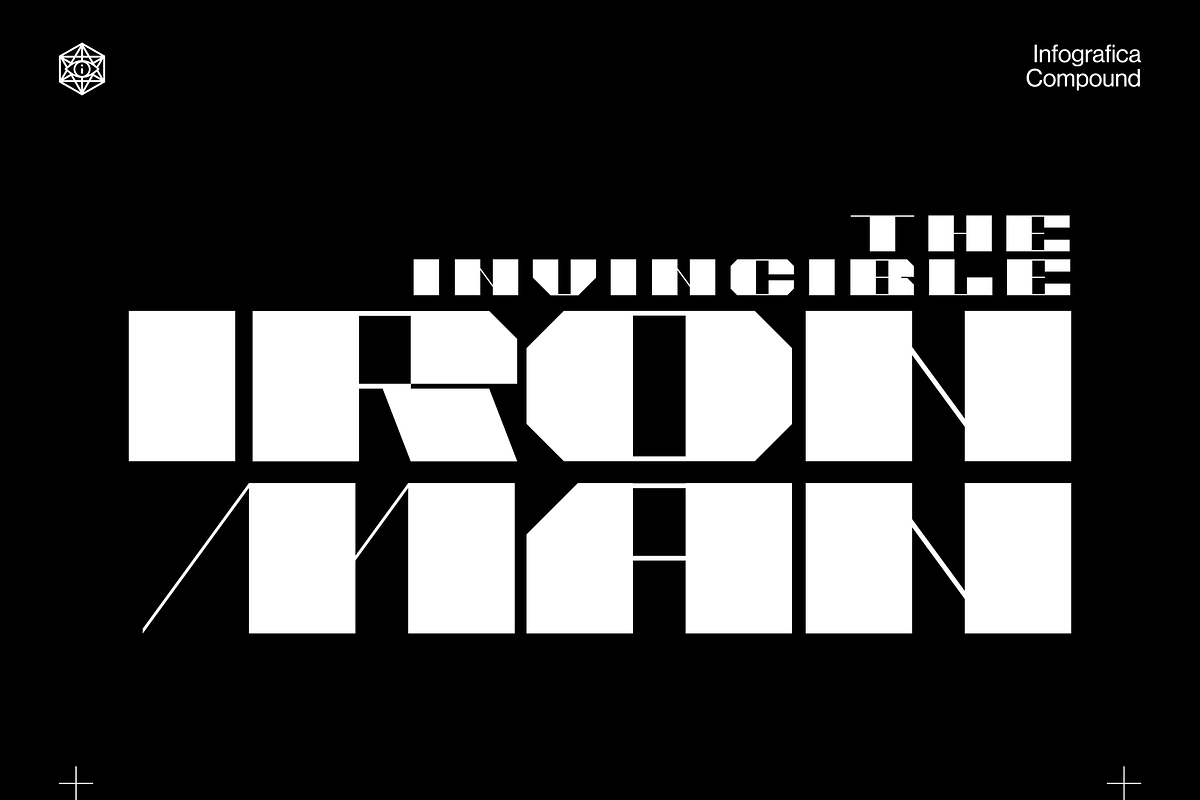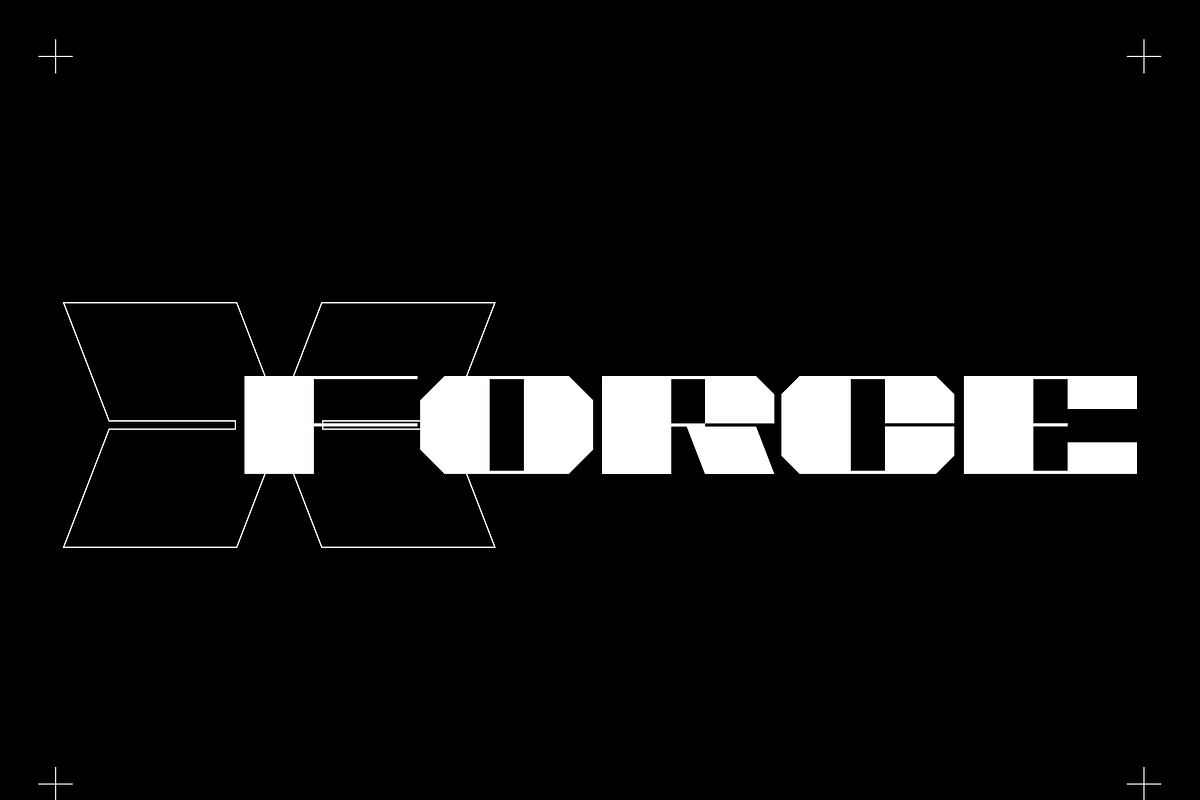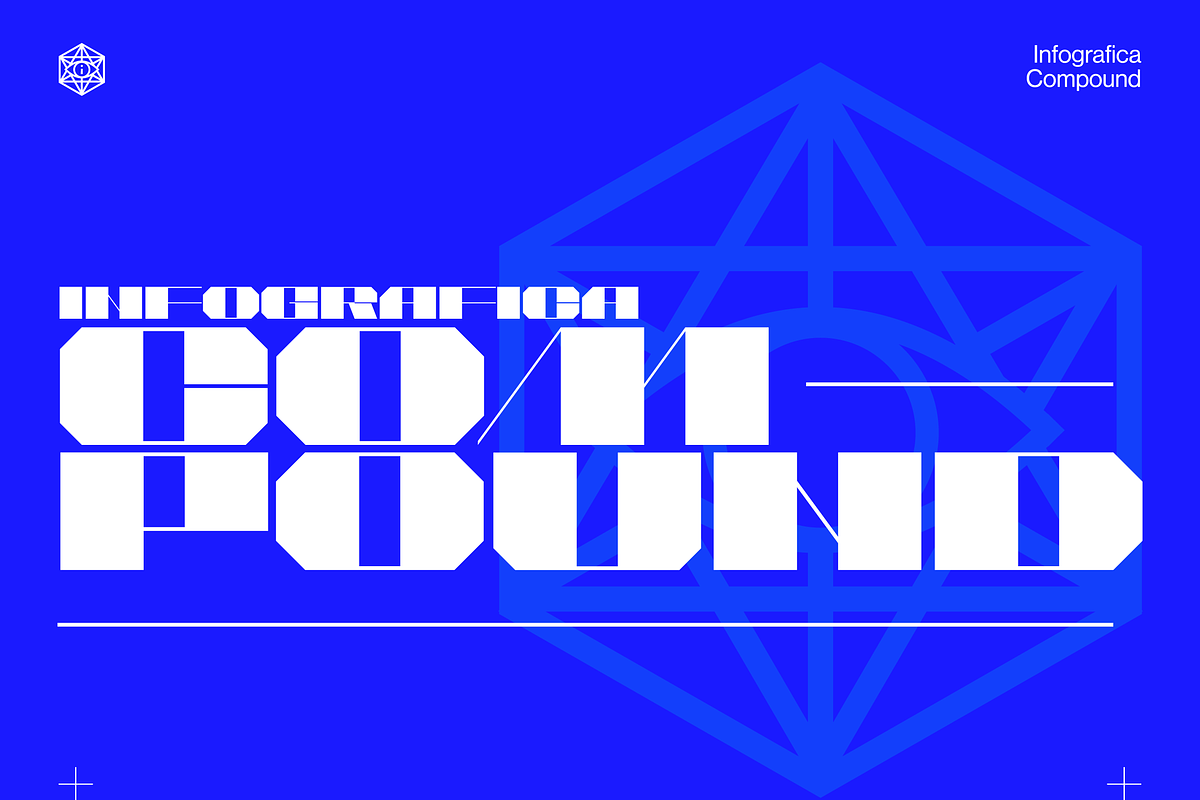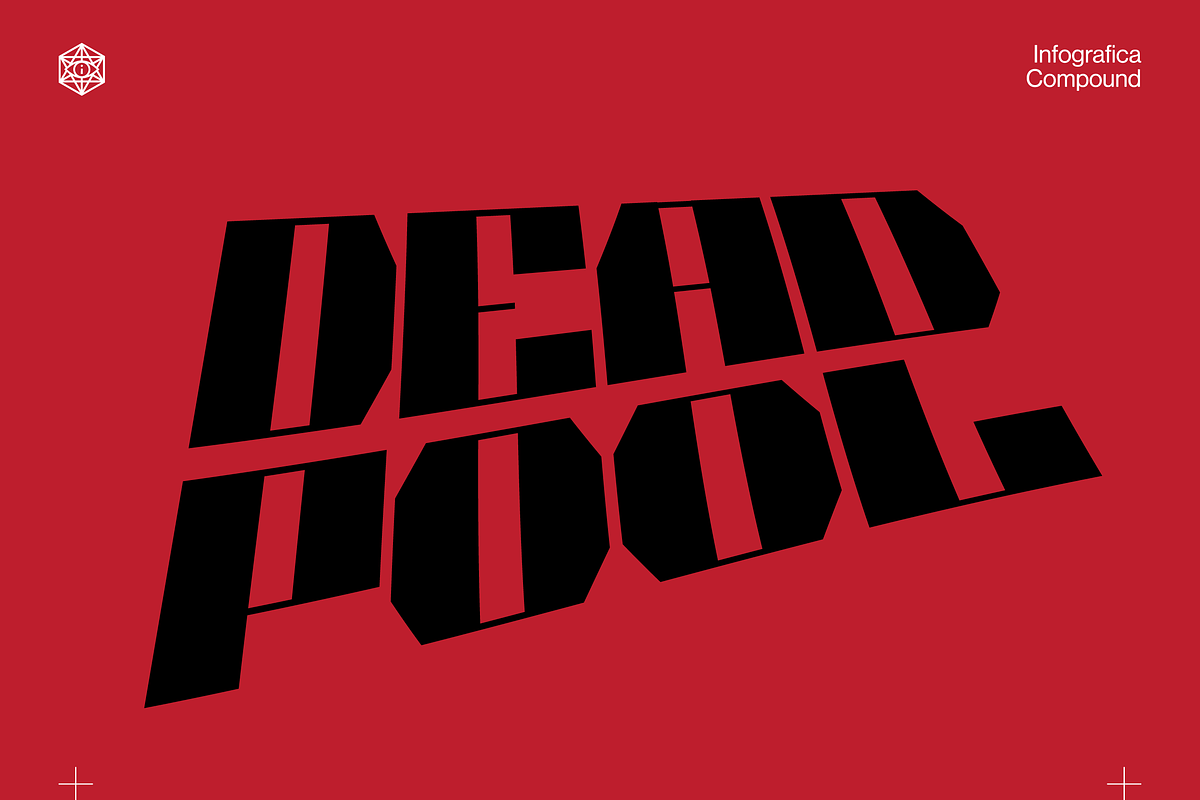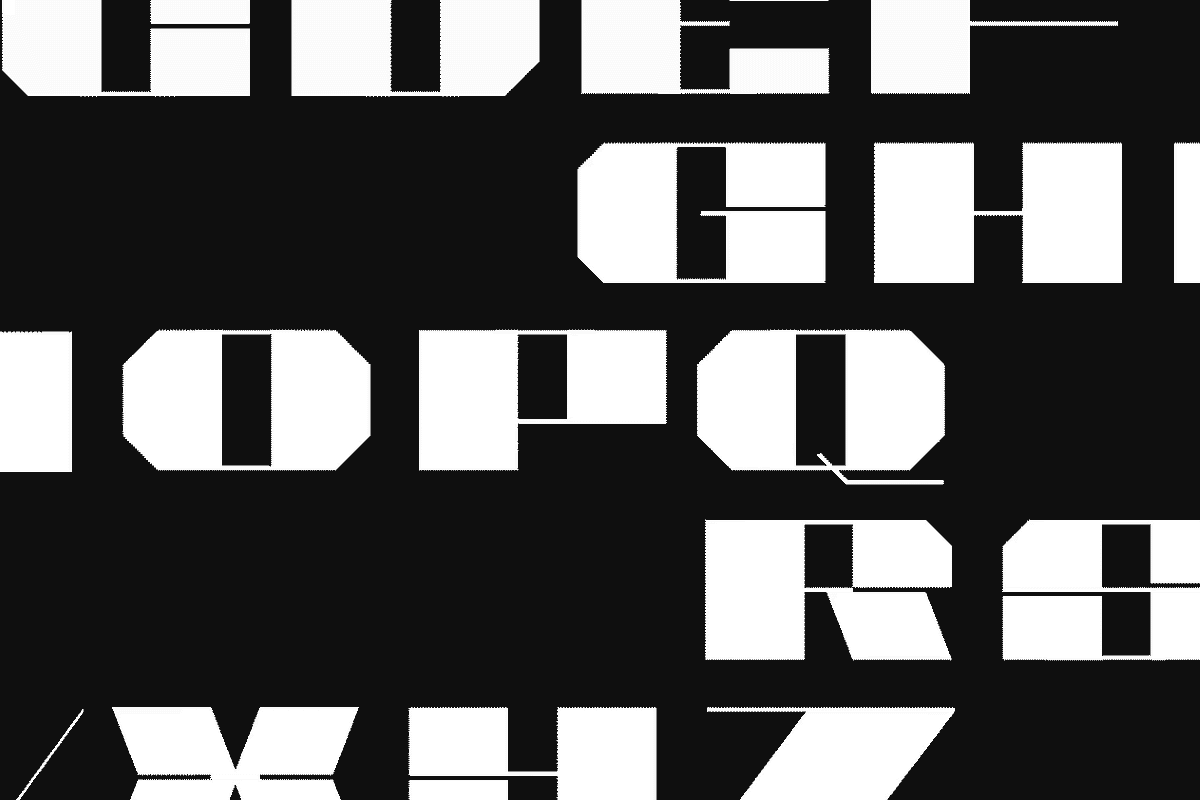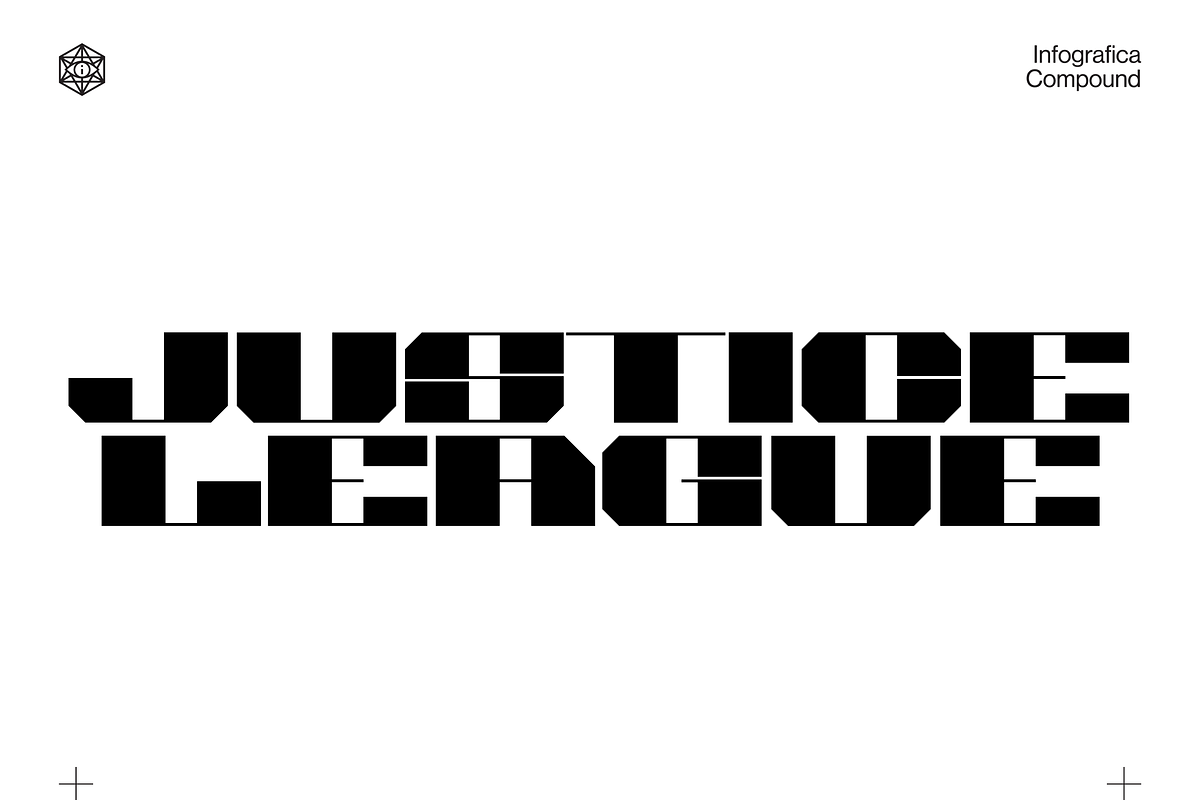
Compound - Typeface
INTRODUCING COMPOUND!
Infographica Compound delivers a dynamic, bold and contemporary sans serif font where every letter has been carefully produced to make your typography work looks fantastic. Perfect for edgy entertainment, sport and lifestyle brands and designs!
Compound is a lean typeface with minimal numbers and symbols but does come with multiple beautiful character variations to help take your typesetting to THE NEXT LEVEL!